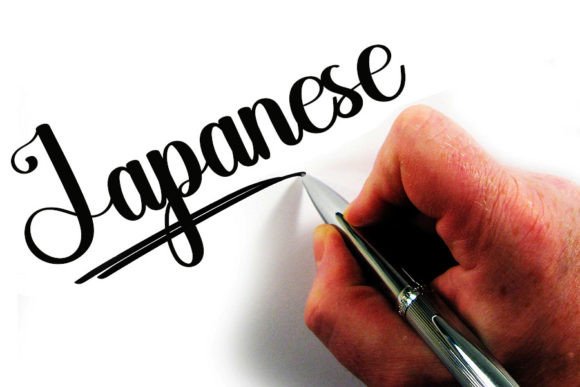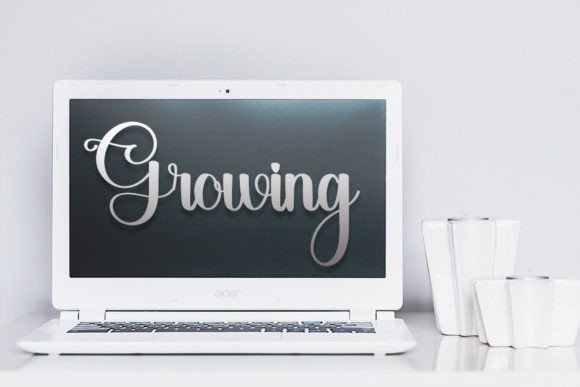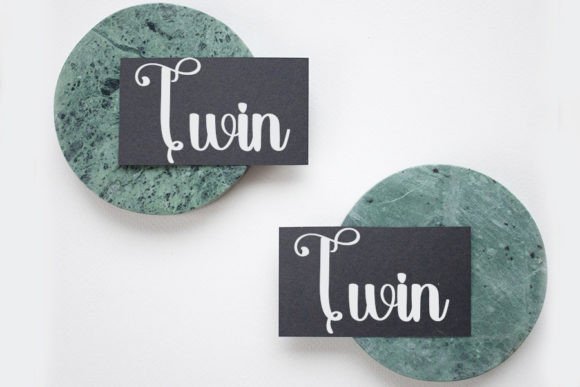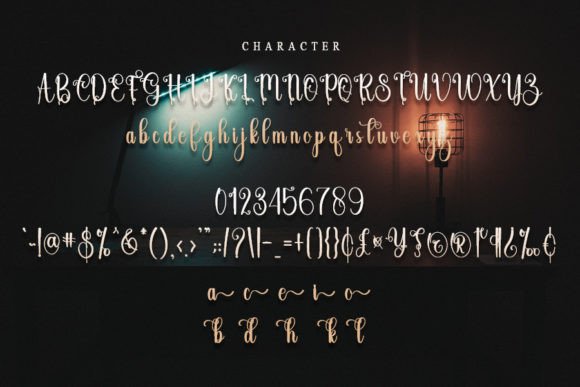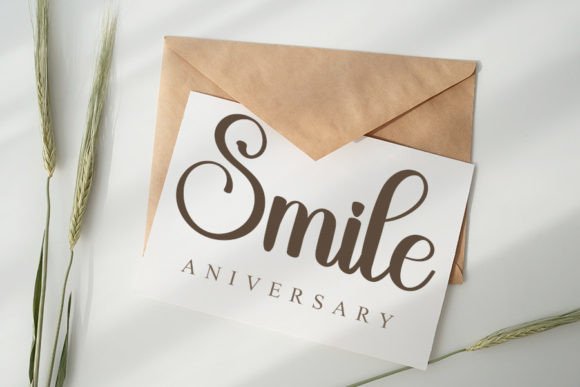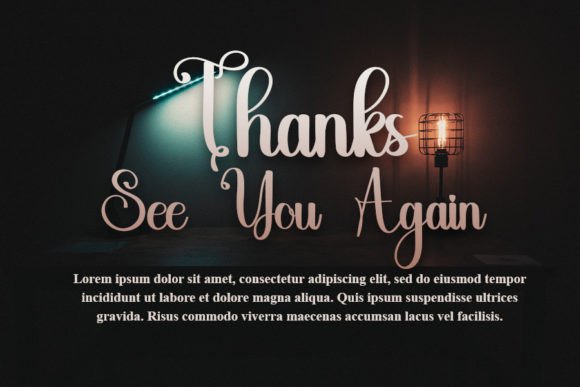
Introduction to Ganbate Font
Ganbate is a beautiful and refined handwritten font.
Classy and modern, it is perfect for logos, branding, invitations, stationery, wedding designs, social media posts, and much more This font is PUA encoded, which means you can access all of the amazing glyphs and ligatures with ease.